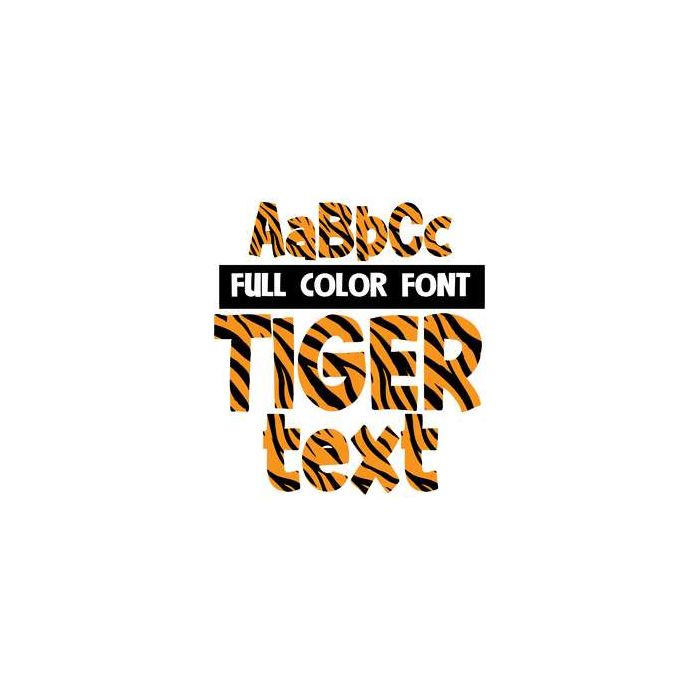
This full-color font features tiger print on thick, crafty letters. This font works best for titles, displays, posters and more. Please note color fonts will show as black in non compatible programs. This font type is compatible with Silhouette Studio.